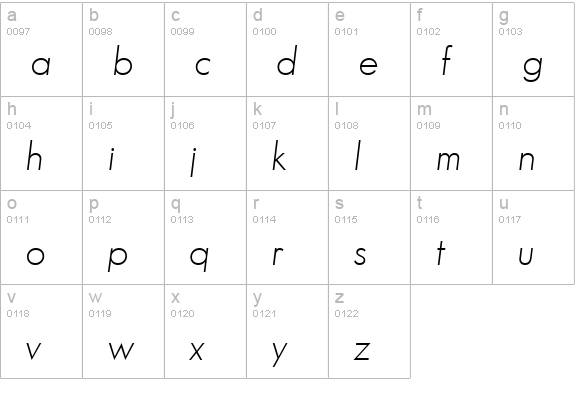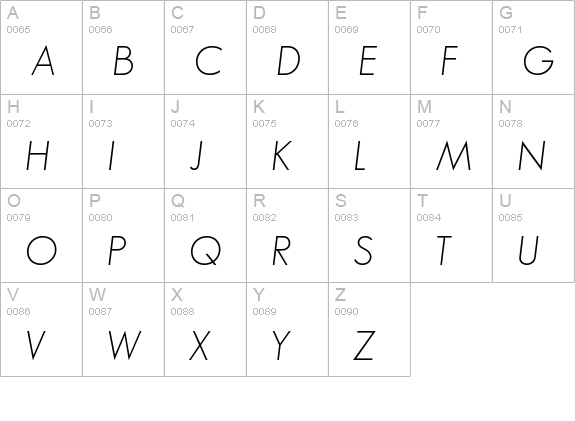
Bougan SSi Italic is a distinctive, italic variant in the Bougan typeface family \xE2\x80\x94 well suited to design and typography projects.
Bougan SSi Italic font is a sleek and modern typeface that exudes elegance and sophistication. Its distinctive italic style adds a touch of flair to any design project, making it perfect for headings, titles, and branding materials. This font features clean lines and a bold presence that demands attention without overpowering the overall aesthetic. The slanted letters create a sense of movement and dynamism, making Bougan SSi Italic a versatile choice for both digital and print applications. And the best part? Bougan SSi Italic font is available for free download at FontsMarket.com! This means you can elevate your designs with this stylish typeface without breaking the bank. Don't miss out on the opportunity to enhance your projects with the unique charm and sophistication of Bougan SSi Italic font. Download it today and make a statement with your typography.